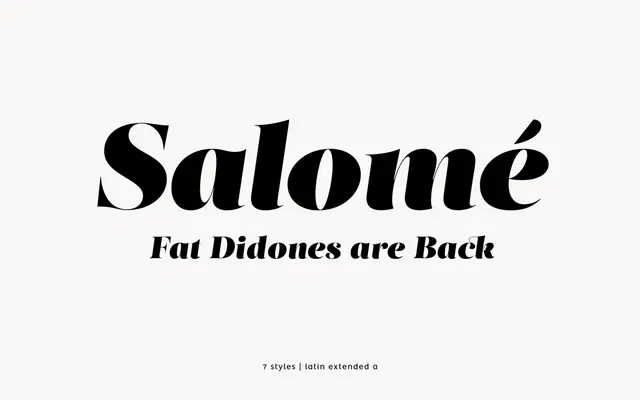
Salome specimen from atipo foundry
A high-contrast Didone display serif from atipo with Fine, Stencil and Deco cuts for fashion and editorial work.
Salome is atipo foundry's high-contrast display serif, sitting in the Didone family alongside Bodoni and Didot. The core family pairs a Regular and an Italic with a thin Fine cut, a Stencil cut and a geometric Deco cut, which gives it the range to run from elegant fashion mastheads to art-directed editorial covers. It includes true small caps, swash characters, stylistic alternates, lining and oldstyle figures, fractions, ordinals and discretionary ligatures, so it earns its keep across long-form layouts as well as logotypes. Latin Extended language support covers most European languages.
A high-contrast Didone display serif in the Bodoni and Didot lineage. Atipo offer Salome in regular and italic, plus Fine, Stencil and Deco cuts that lean further into editorial display use.